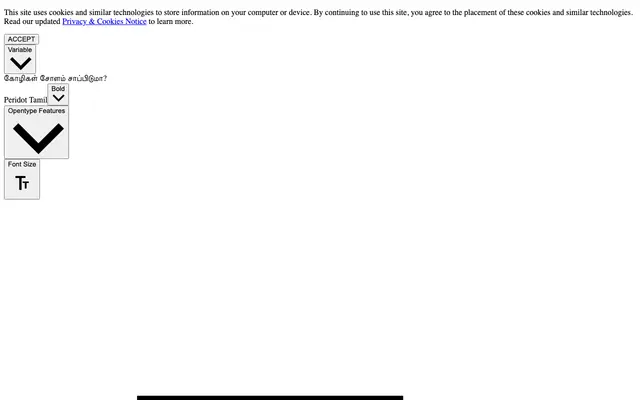
Peridot Tamil
Foundry Five · Pria Ravichandran, Kostas Bartsokas · 2026
A 20-style Tamil and Latin sans serif system with variable support, covering 314 languages across 10 weights and six widths.
Designed by Pria Ravichandran with Latin contributions from Kostas Bartsokas, Peridot Tamil pairs Tamil and Latin scripts in a single cohesive system. The family spans 10 weights with matching italics, six width variants and full variable format support, making it suitable for branding, editorial, advertising and screen work. It was awarded the EBGE Original Typeface award at the Greek Communication Design Awards 2023 and an Award of Excellence at Communication Arts Typography Competition 2024.
A multi-script sans serif system with humanist proportions, designed to function across Tamil and Latin scripts with extensive weight and width range. The Tamil script was designed specifically by Pria Ravichandran.